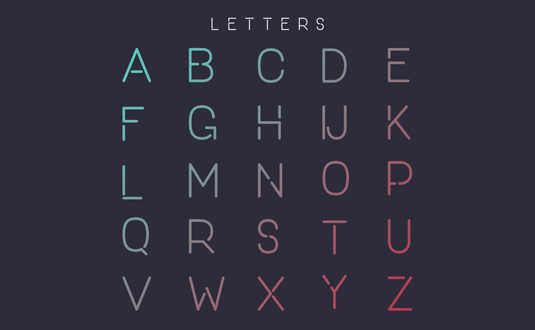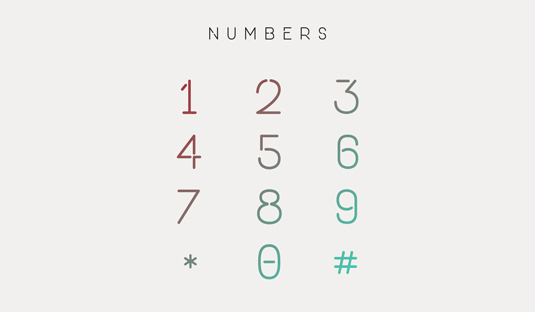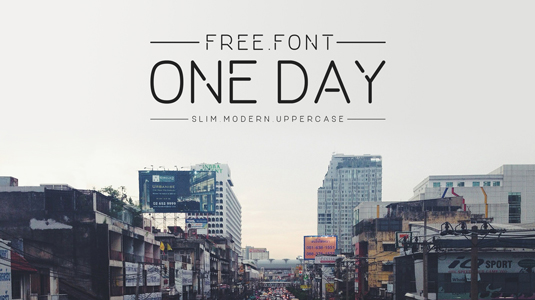
Font of the day: One Day
One Day by Nawras Moneer
Graphic designer Nawras Moneer is behind today's typeface of choice, One Day. Created in just 24 hours, the modern, geometric flat design is great for a variety of print and digital projects, including posters, logos and headlines.